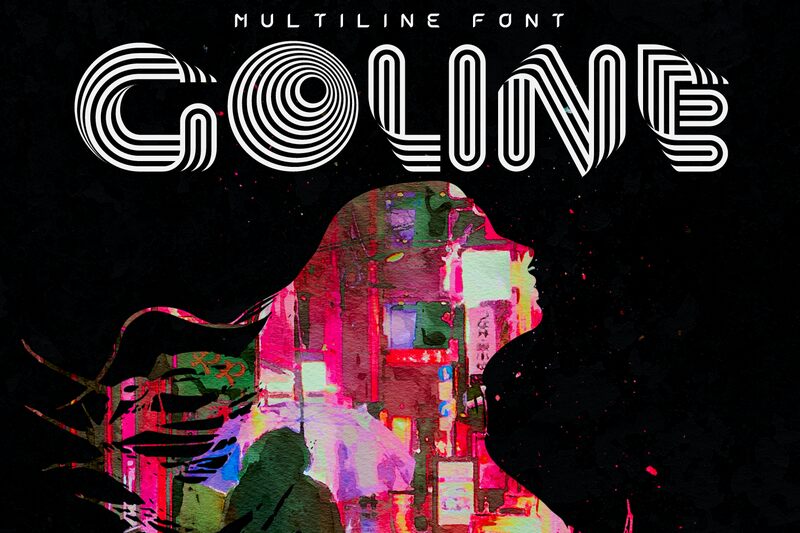
Goline Display Demo Regular
Goline display font is a stylish bold font with a groovy design, which you can utilize for logos, posters, branding projects, t-shirts, postcards, flyers, websites, headlines, etc.